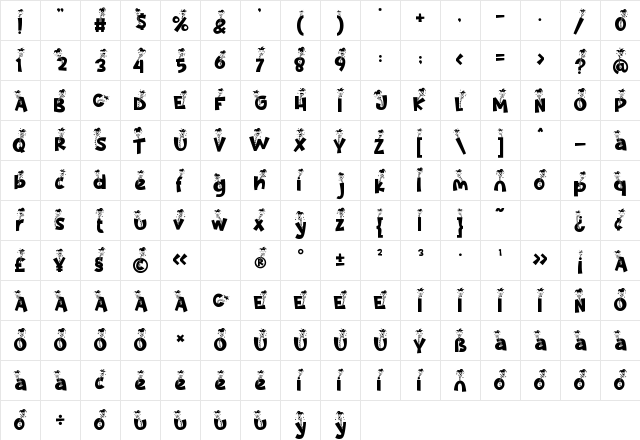
Night Clown Surprise Regular
Foundry: Putracetol Studio, Karanganyar.
Designer: Putra Novembria Candra Kusuma
Complete Night Clown Surprise Regular glyph index. Displaying only characters natively supported by Night Clown Surprise Regular font.
Design Context for Night Clown Surprise
Night Clown Surprise is a composed and adaptable typeface that performs quietly and consistently across a wide range of design contexts.